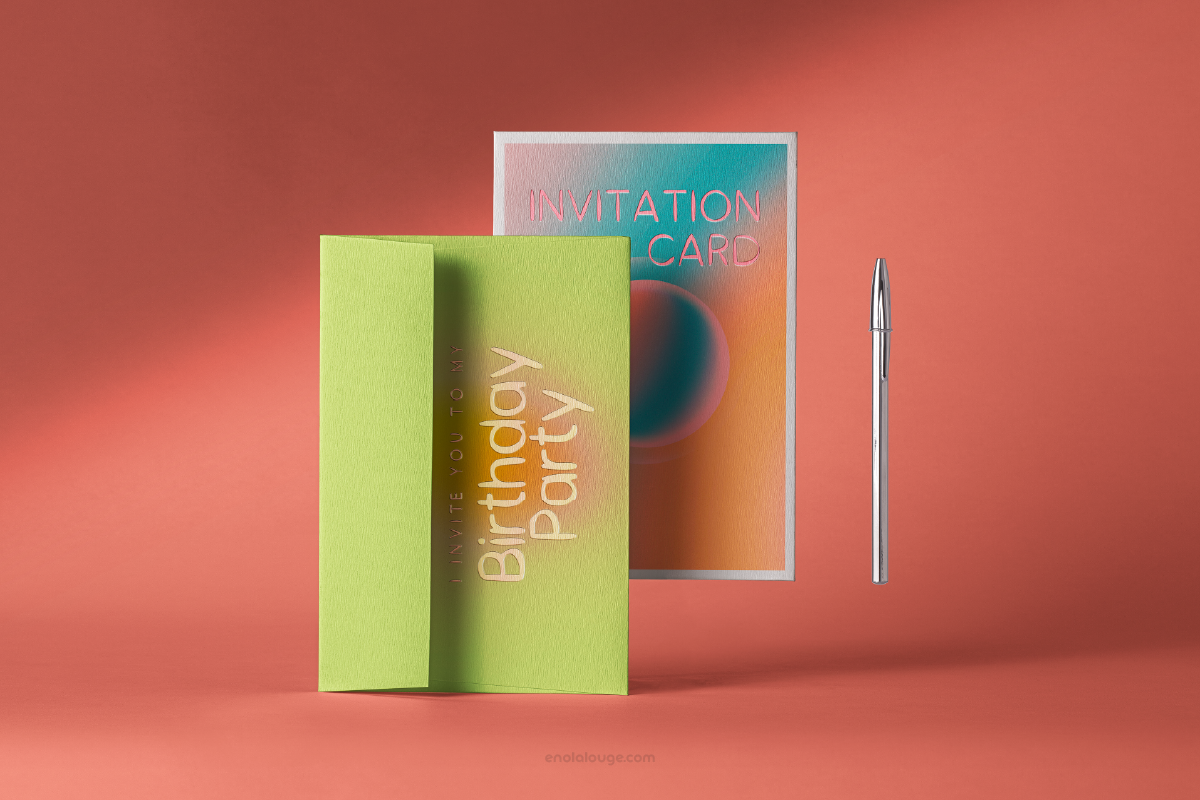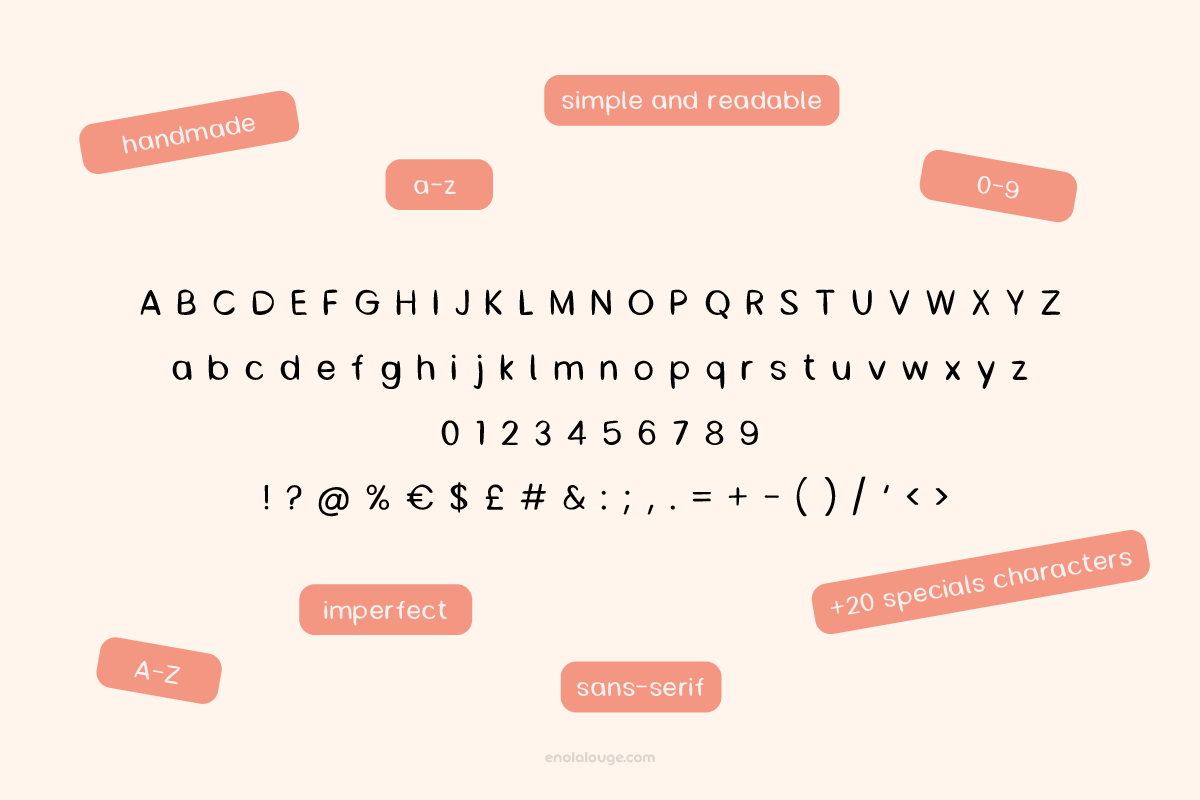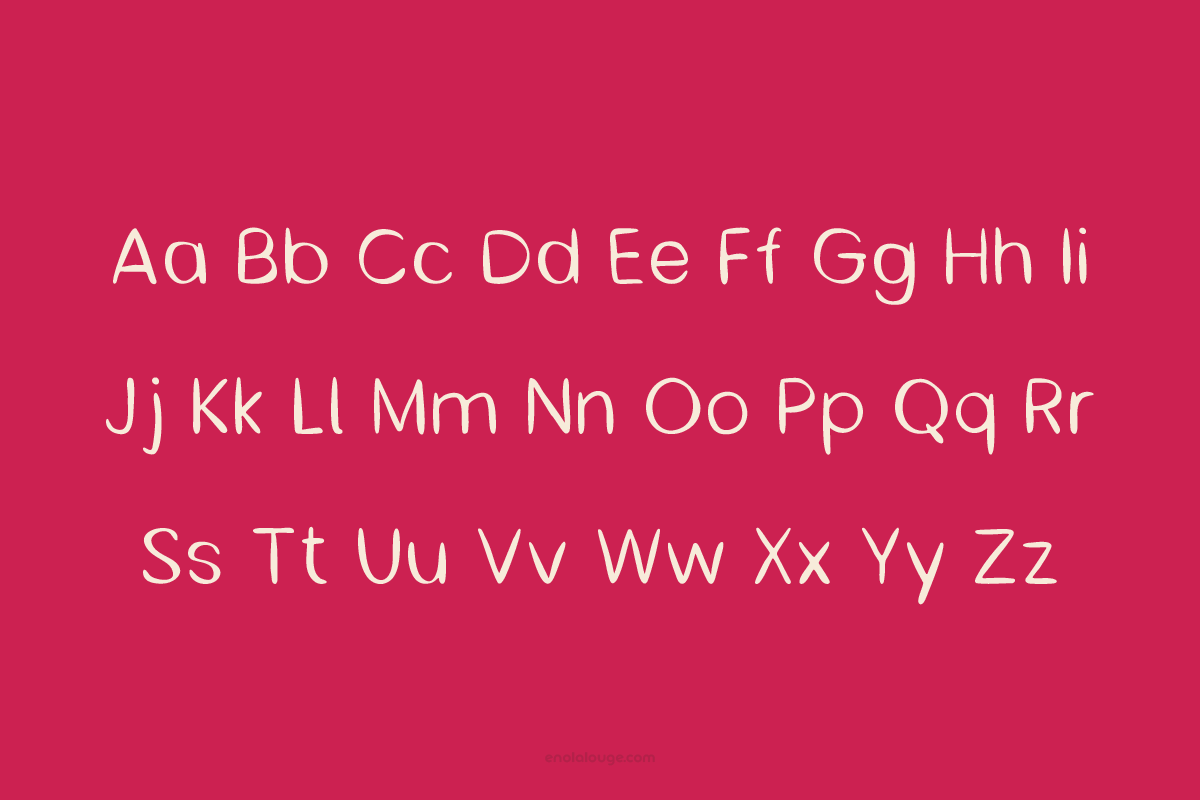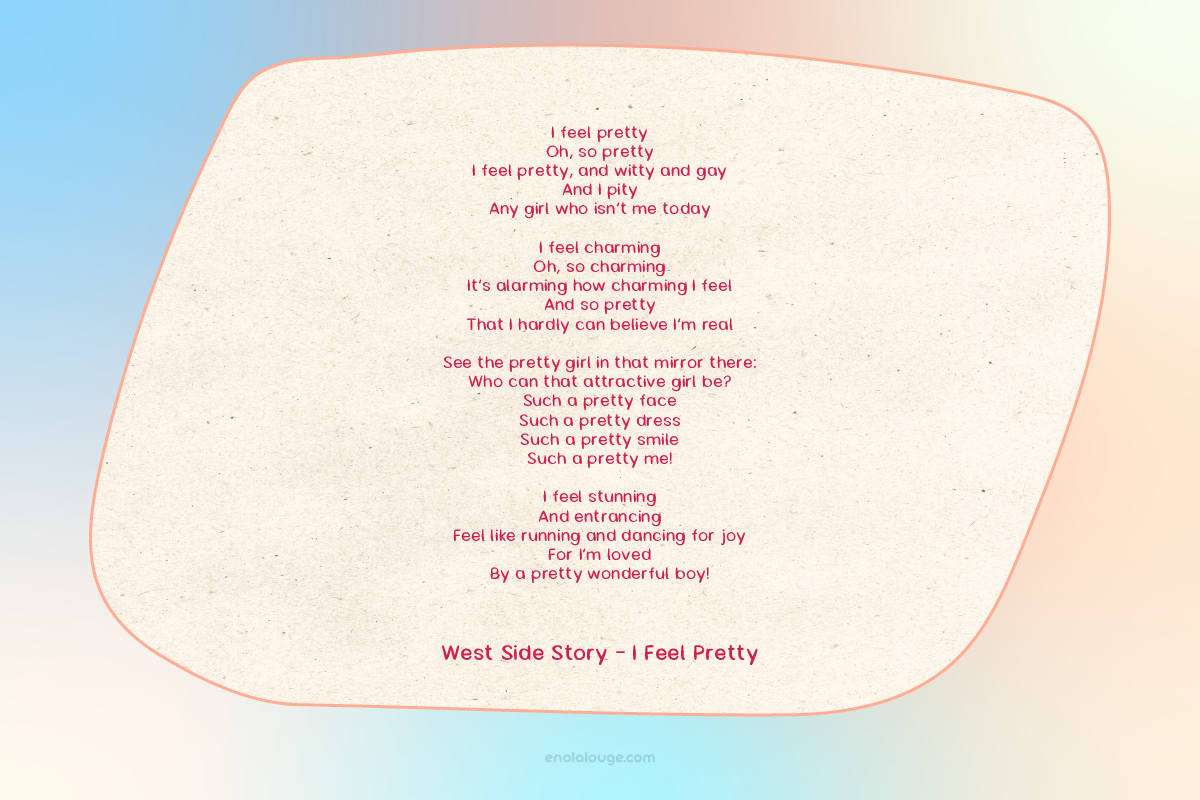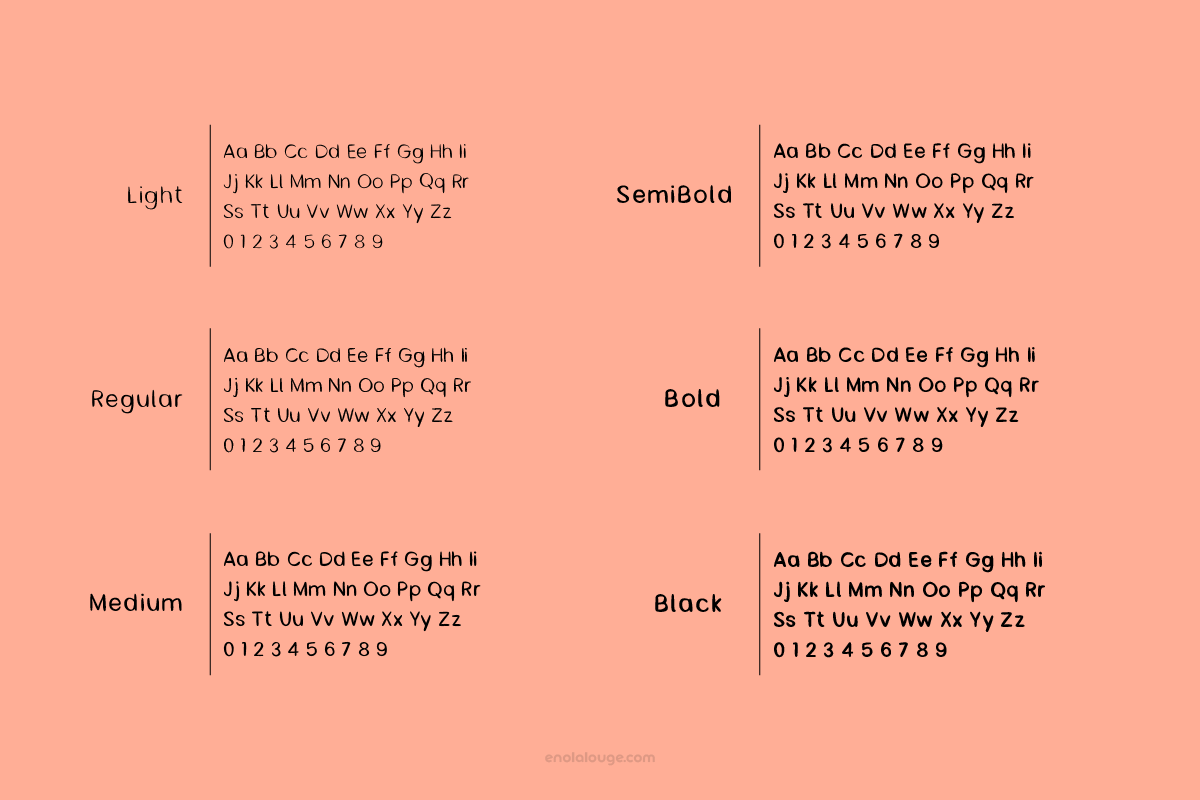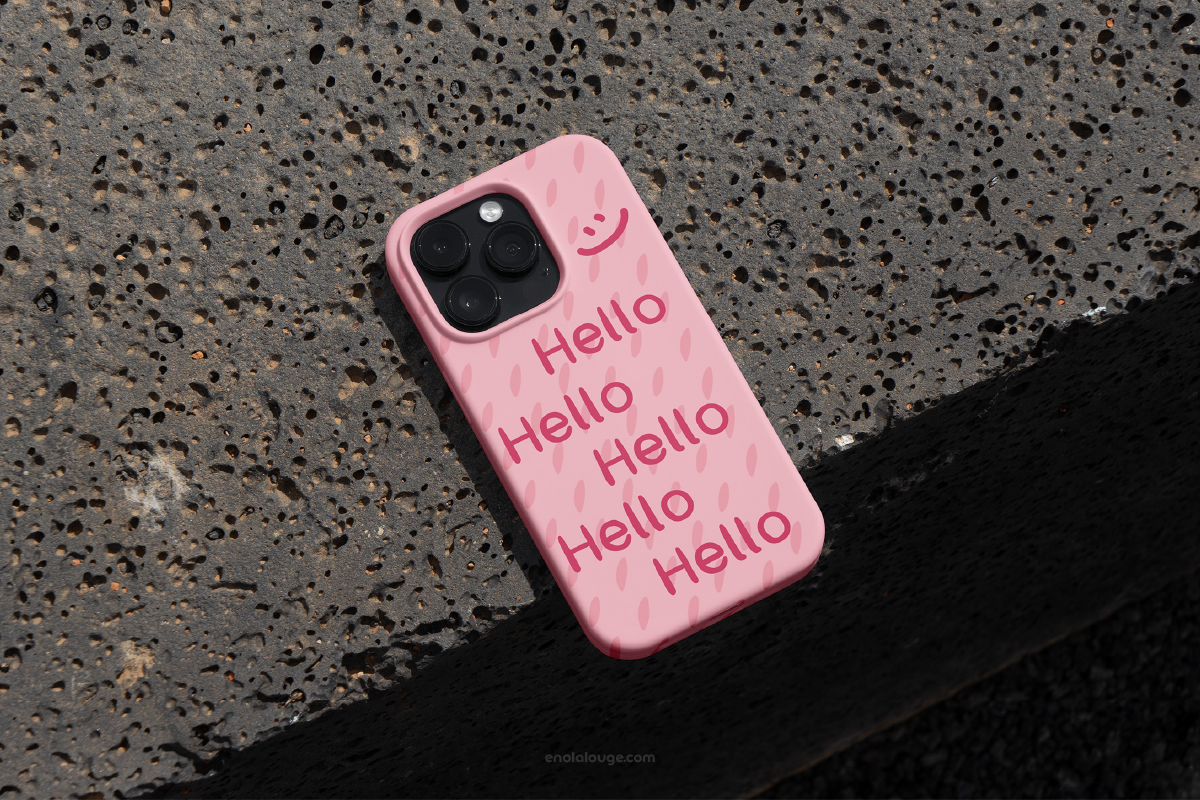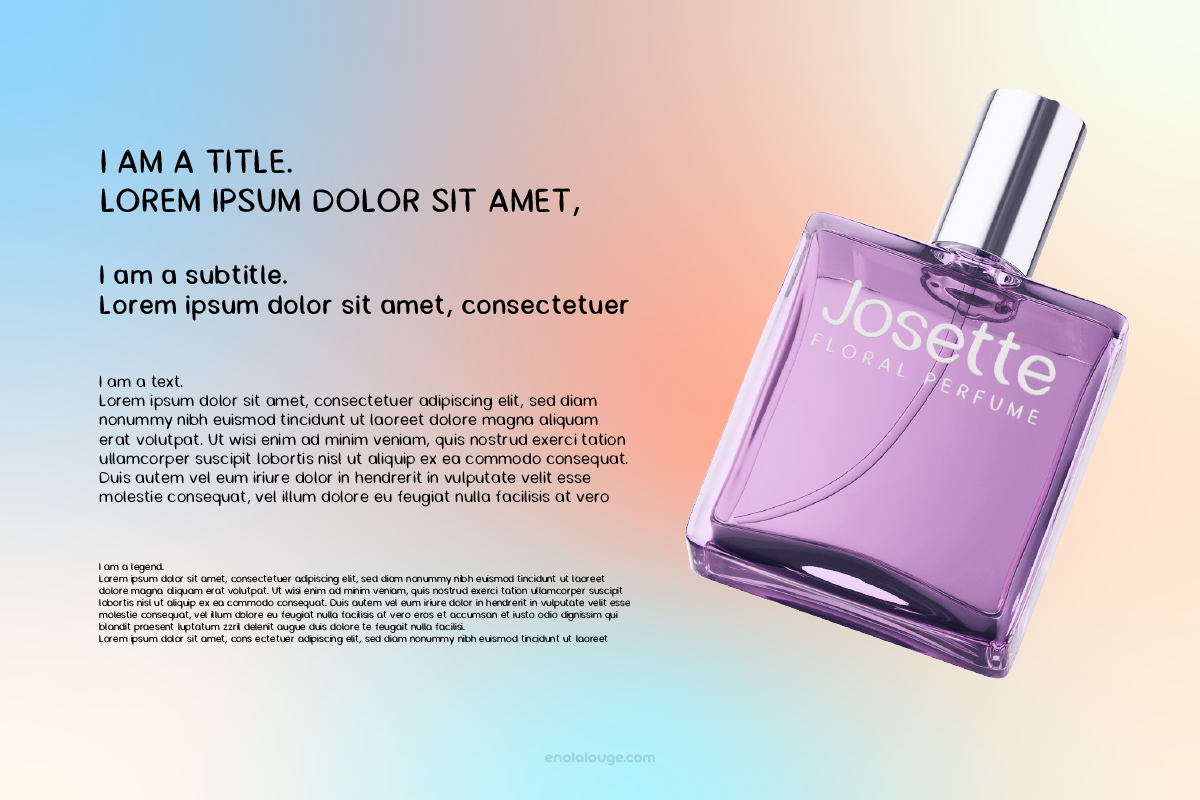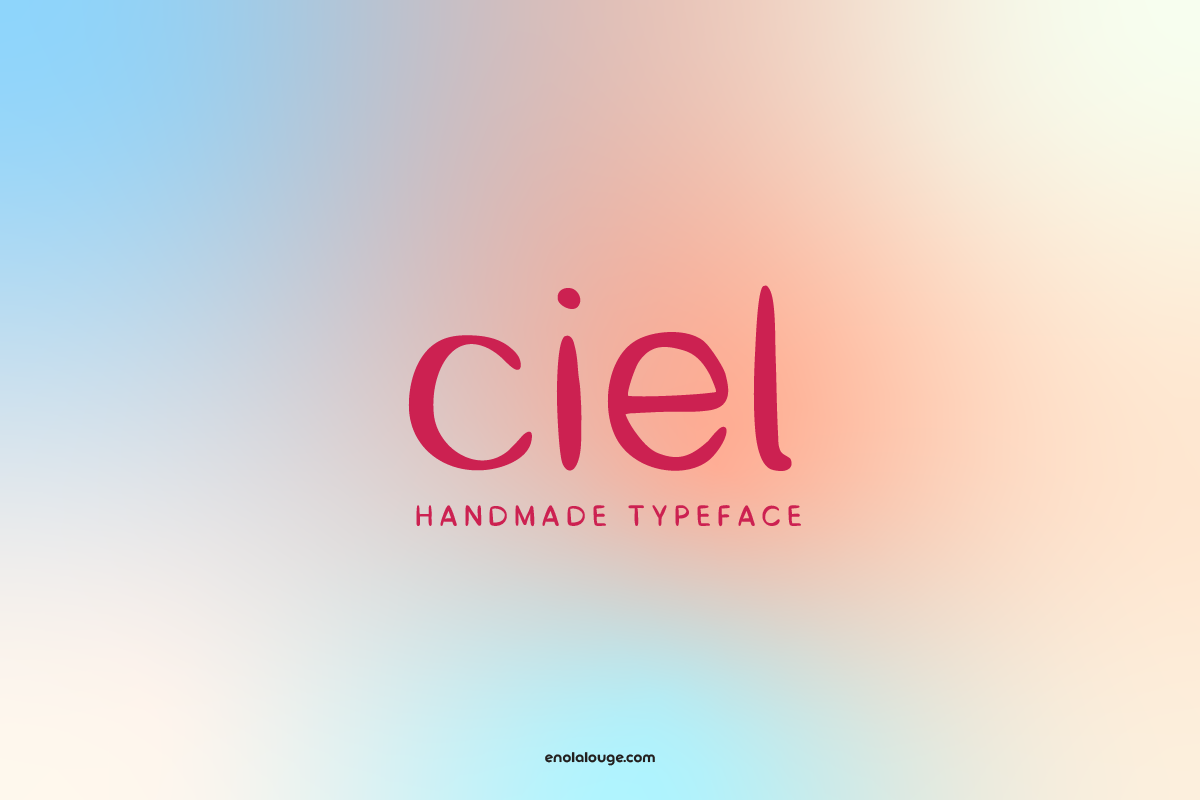
Ciel - poetic handmade typeface
Ciel is a poetic, handmade typeface that embraces the charm of delicate imperfection. With its soft, feminine strokes, it captures the essence of natural, unrefined handwriting.
Featuring a full range of characters—lowercase, uppercase, numbers, and over 20 symbols like ?!& etc.
Ciel brings versatility and personality to your designs. Available in 6 weights, from Light to Black, it adapts beautifully to any creative vision, lending a gentle yet distinctive touch to your work.